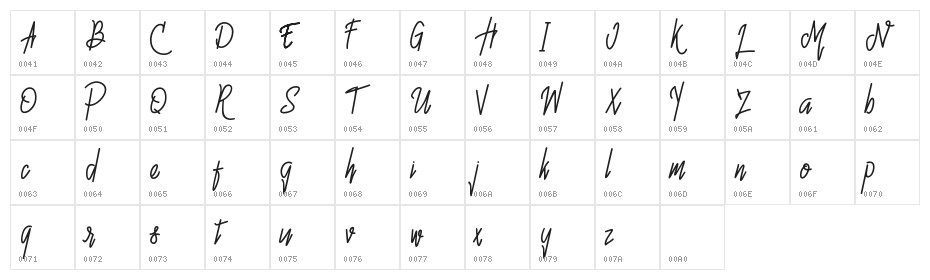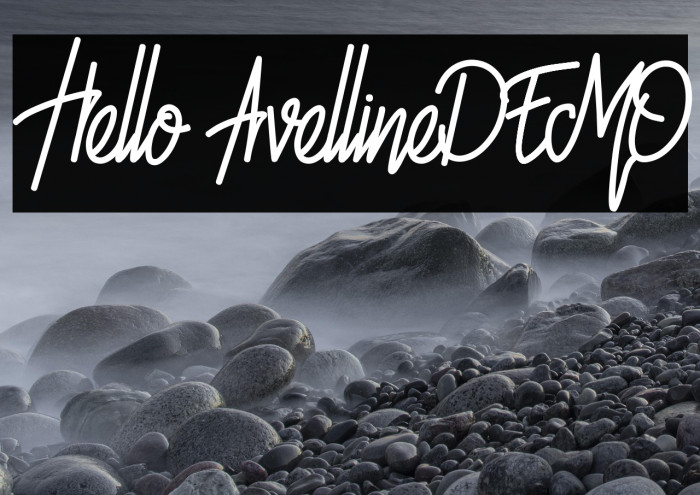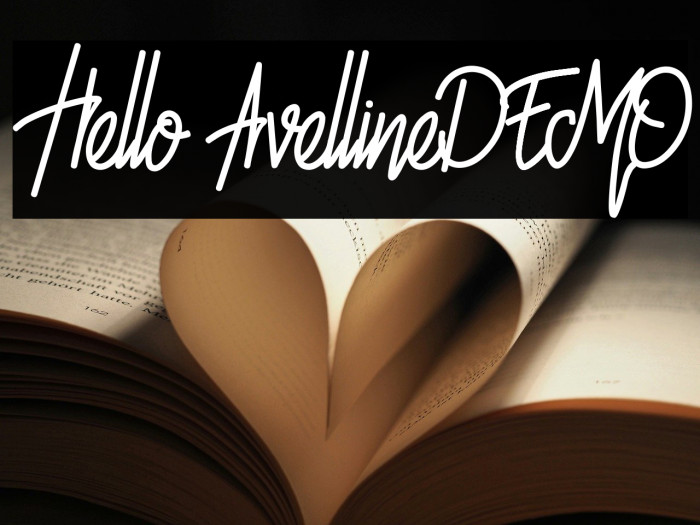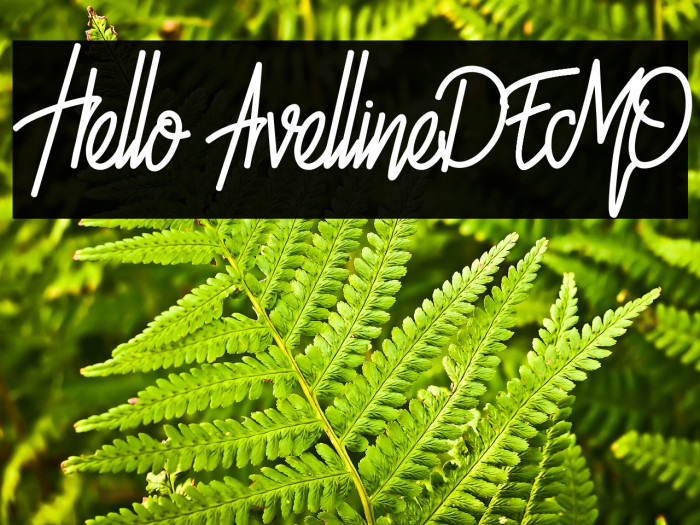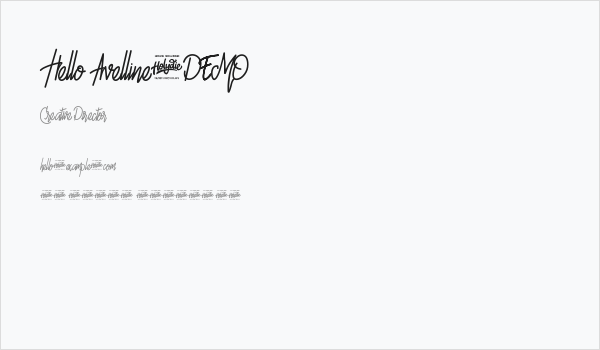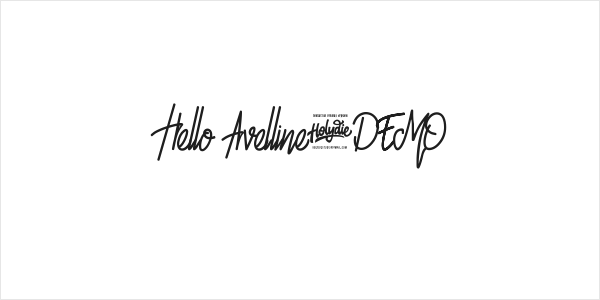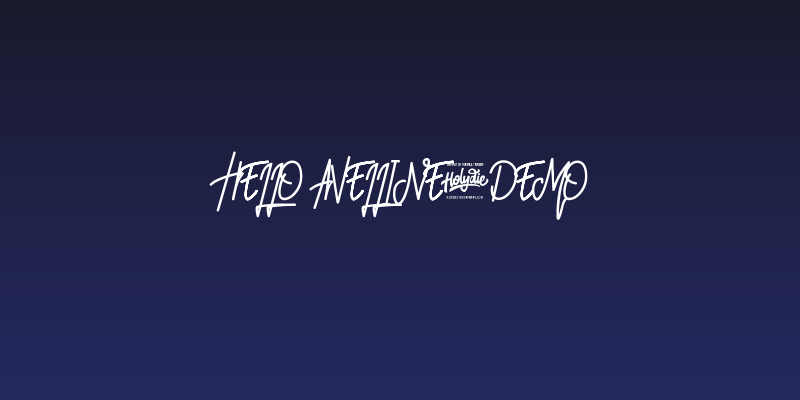
Hello Avelline-DEMO Font
Hello Avelline-DEMO Description
A flowing, cursive script font with a handwritten style, featuring elongated strokes and a dynamic, casual appearance.
| Overall Style | Casual, Handwritten |
| Use Case | Logos, Headlines |
| Proposed Projects | Invitations, greeting cards, personal branding. |